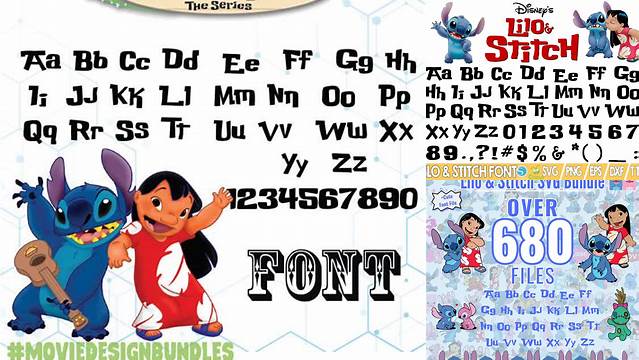
Lilo & Stitch Font For Cricut: A Crafting Guide
Are you a fan of the heartwarming Disney movie Lilo & Stitch and eager to incorporate its unique aesthetic into your Cricut projects? Well, you've come to the right place! In this comprehensive guide, we'll dive deep into the world of Lilo and Stitch fonts for Cricut, exploring everything from where to find them and how to use them, to inspiring project ideas that will bring the spirit of Ohana to your crafts. So, grab your cutting machine and let's get started!
Finding the Perfect Lilo and Stitch Font
Finding the perfect Lilo and Stitch font is the first step in bringing your creative visions to life. Several avenues offer a variety of fonts that capture the essence of the movie's playful and tropical vibe. Let’s discuss the methods you can use to acquire these fonts, ensuring you have a wide array of options for your Cricut projects. The right font can truly make your designs stand out and reflect the fun, loving spirit of Lilo and Stitch.
Exploring Online Font Marketplaces
Online font marketplaces are treasure troves for unique and creative fonts, including those inspired by Lilo & Stitch. Websites like Etsy, Creative Fabrica, and Font Bundles often feature fonts designed by independent creators, offering a diverse range of styles that capture the movie's whimsical spirit. When browsing these marketplaces, use keywords such as "Lilo and Stitch font," "Hawaiian font," or "tropical font" to narrow your search. Etsy is particularly known for its handmade and custom designs, making it a great place to find fonts with a personal touch. Creative Fabrica is another excellent resource, offering a wide variety of fonts and graphics with commercial licenses, perfect for crafters who sell their creations. Font Bundles often features limited-time deals and bundles, providing an opportunity to acquire multiple fonts at a discounted price. These platforms make it easy to preview fonts, read customer reviews, and ensure the font is compatible with Cricut Design Space before making a purchase. Remember to check the licensing terms carefully to ensure you are using the font appropriately for your intended projects. By exploring these online marketplaces, you can discover the ideal font to add a touch of Ohana to your Cricut crafts.
Utilizing Cricut Design Space Fonts
Cricut Design Space itself offers a wide array of fonts, including some that can perfectly capture the spirit of Lilo & Stitch. While you might not find an exact replica of the movie's title font, you can discover various fonts with a tropical or playful vibe that will complement your projects beautifully. To explore the fonts available in Cricut Design Space, simply open a new project and add a text box. The font selection menu allows you to browse through different categories and styles, making it easy to find something that suits your needs. Consider using filters to narrow your search by style (e.g., script, display) or language. Fonts with a handwritten or whimsical feel can evoke the charm of Lilo & Stitch, while bolder, sans-serif fonts might work well for titles and headings. Additionally, Cricut Design Space offers access to Cricut Access fonts, a subscription service that provides a vast library of fonts and images. If you're a frequent Cricut user, a Cricut Access subscription can be a worthwhile investment, granting you access to a constantly expanding collection of design resources. By leveraging the fonts available within Cricut Design Space, you can create stunning Lilo & Stitch-themed projects without needing to venture elsewhere for font resources.
Working with Fonts in Cricut Design Space
Once you've found the perfect Lilo and Stitch font, the next step is to bring it into Cricut Design Space and start crafting! Cricut Design Space is a powerful tool, but it's important to understand how to use fonts effectively within the software to achieve the best results. Let's walk through the process of uploading fonts, welding script fonts, and exploring various techniques to customize your text.
Welding Script Fonts for Seamless Cuts
Welding script fonts is a crucial step when working with cursive or connected fonts in Cricut Design Space. Without welding, each letter in a script font will be cut out individually, resulting in overlapping and disjointed letters rather than a smooth, flowing word. To weld a script font, first, type your desired text in Cricut Design Space. Then, adjust the letter spacing as needed to ensure the letters connect properly. Select the entire text and click the "Weld" button located in the bottom right-hand corner of the screen. This will merge the overlapping parts of the letters, creating a single, continuous shape that your Cricut machine can cut seamlessly. It's important to note that welding is a permanent action; once you've welded the letters, you can't edit the individual characters. Therefore, it's always a good idea to duplicate your text before welding so you have an editable copy in case you need to make changes later. If you've already welded your text and need to make adjustments, you'll have to start over with a new text box. By mastering the welding technique, you can ensure your script font projects have a polished, professional look, with elegant, flowing lines that capture the beauty of cursive typography.
Customizing Your Text: Size, Color, and Style
Customizing your text in Cricut Design Space allows you to tailor your designs to perfectly match your project vision. Cricut Design Space offers a range of options for adjusting the size, color, and style of your text, giving you complete control over the final appearance. To change the size of your text, you can either drag the corner handles of the text box or enter specific dimensions in the size fields at the top of the screen. Experiment with different sizes to find the perfect fit for your project. Adjusting the color of your text is equally simple. Select the text and click on the color swatch in the top toolbar. You can choose from a wide variety of colors, including solid colors, patterns, and even custom colors using the advanced color picker. When it comes to style, Cricut Design Space allows you to apply various formatting options such as bold, italic, and underline (depending on the font's capabilities). You can also adjust the font's letter spacing and line spacing to fine-tune the text's appearance. For more advanced customization, consider using features like contour and offset to add depth and dimension to your text. The contour tool allows you to hide or reveal specific parts of a design, while the offset feature creates a border around your text, making it stand out even more. By exploring these customization options, you can transform a simple text element into a stunning focal point of your Cricut project.
Lilo and Stitch Cricut Project Ideas
Now that you've mastered the art of finding and working with Lilo and Stitch fonts, let's get those creative juices flowing! The possibilities for Lilo & Stitch-themed Cricut projects are as endless as the Hawaiian coastline. From personalized gifts to home décor, there are countless ways to incorporate the charm and spirit of Ohana into your crafts. Let's explore some inspiring ideas to get you started.
Conclusion: Embrace the Ohana Spirit with Cricut
In conclusion, incorporating the Lilo and Stitch font into your Cricut projects is a fantastic way to infuse your creations with the heartwarming spirit of Ohana. By exploring online marketplaces, utilizing free font resources cautiously, and leveraging the fonts available in Cricut Design Space, you can find the perfect typography to bring your visions to life. Mastering techniques like welding script fonts and customizing text size, color, and style will further enhance your designs. From personalized apparel and home décor to unforgettable party decorations, the possibilities for Lilo & Stitch-themed Cricut projects are truly limitless. So, grab your cutting machine, unleash your creativity, and let the magic of Lilo & Stitch inspire your next crafting adventure. Remember, Ohana means family, and with Cricut, you can create projects that celebrate those special bonds and bring joy to your loved ones. Happy crafting!